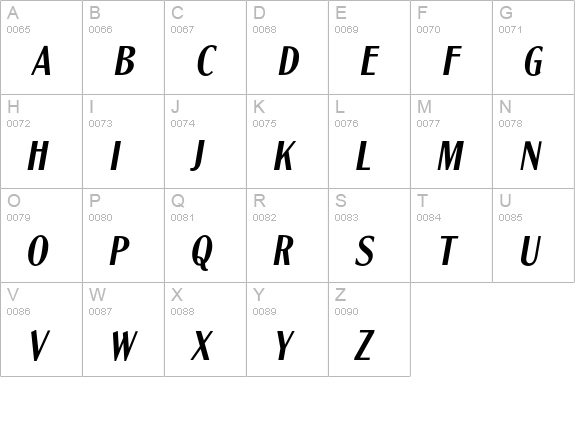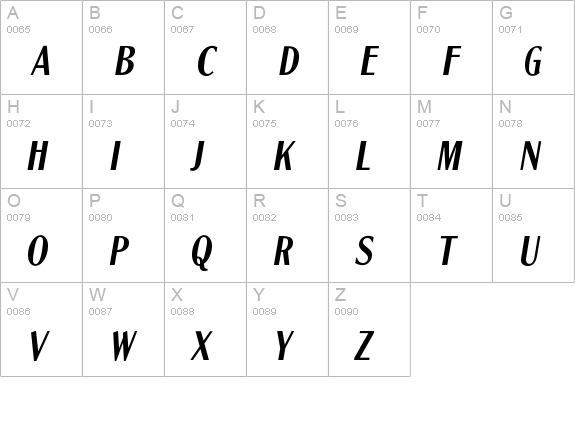
GlobeCondL-Oblique is a distinctive, italic variant in the GlobeCondL typeface family \xE2\x80\x94 well suited to design and typography projects.
GlobeCondL-Oblique is a sleek and stylish typeface that effortlessly balances a sense of modernity with a touch of sophistication. Its slanted design exudes a dynamic energy that adds a subtle flair to any text it graces. The sharp angles and clean lines of GlobeCondL-Oblique make it perfect for conveying a sense of professionalism and elegance in various design projects. Best of all, GlobeCondL-Oblique is available for free download at FontsMarket.com. This means that you can easily access this versatile font and incorporate it into your designs without any hassle. Whether you are working on a website, branding materials, or printed materials, GlobeCondL-Oblique is sure to elevate your design and make a lasting impression. Download this font today and unleash its creative potential in your projects.